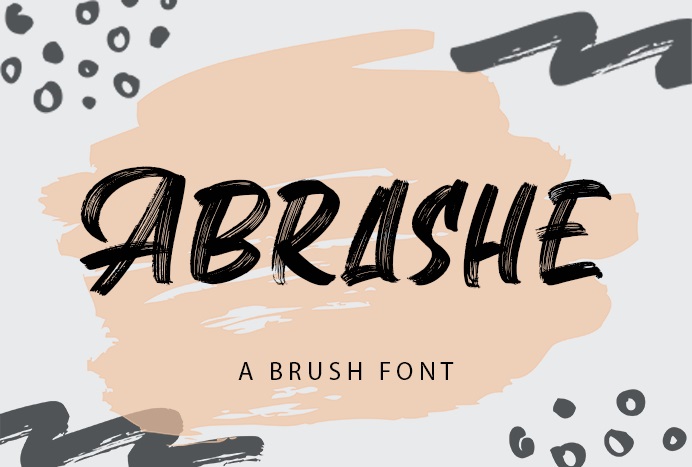
Abrashe Font
Abrashe is the product of a gorgeous combination of a brush pen and pencil that makes it look so incredibly endearing and authentic. It is ideal for branding, quotes, posters, music, logos, lettering, t-shirt design materials, etc.
Abrashe Brush Font